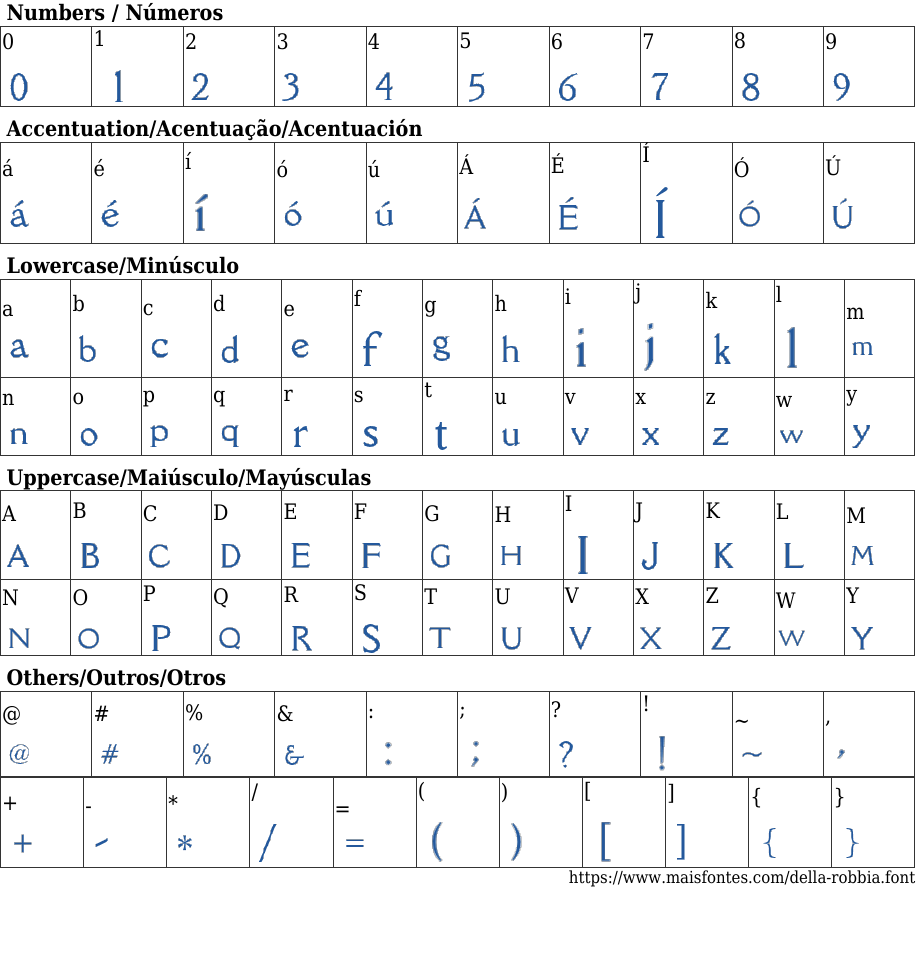
Della Robbia Font . Click the download button to download the compressed file in.zip. della robbia is a font family with four styles: Regular, bold, condensed and bold condensed. della respira is a revival of the 1913 della robbia typeface by american type founders, based on t.m. della robbia is a typeface inspired by 15th century florentine inscriptional capitals, designed by thomas maitland cleland. della robbia in use. Perfect for elegance, readability, and a vintage touch. The font subfamily is regular. aboreto is a display font based on the majuscule alphabet of luca della robbia, a 15th century florentine sculptor. experience the charm of the renaissance with free della robbia fonts. della robbia is the perfect font for all your fun designs.
The font subfamily is regular. della respira is a revival of the 1913 della robbia typeface by american type founders, based on t.m. Click the download button to download the compressed file in.zip. experience the charm of the renaissance with free della robbia fonts. della robbia is a typeface inspired by 15th century florentine inscriptional capitals, designed by thomas maitland cleland. Regular, bold, condensed and bold condensed. aboreto is a display font based on the majuscule alphabet of luca della robbia, a 15th century florentine sculptor. Perfect for elegance, readability, and a vintage touch. della robbia is a font family with four styles: della robbia in use.
Della Robbia Font Regular, bold, condensed and bold condensed. Perfect for elegance, readability, and a vintage touch. The font subfamily is regular. experience the charm of the renaissance with free della robbia fonts. della robbia in use. aboreto is a display font based on the majuscule alphabet of luca della robbia, a 15th century florentine sculptor. della robbia is a font family with four styles: della respira is a revival of the 1913 della robbia typeface by american type founders, based on t.m. della robbia is a typeface inspired by 15th century florentine inscriptional capitals, designed by thomas maitland cleland. della robbia is the perfect font for all your fun designs. Regular, bold, condensed and bold condensed. Click the download button to download the compressed file in.zip.
Della Robbia Font Fontspring Della Robbia Font aboreto is a display font based on the majuscule alphabet of luca della robbia, a 15th century florentine sculptor. della robbia is the perfect font for all your fun designs. della robbia is a typeface inspired by 15th century florentine inscriptional capitals, designed by thomas maitland cleland. Regular, bold, condensed and bold condensed. The font subfamily is. Della Robbia Font.
A04 Della Robbia Madonna FONT Della Robbia Font aboreto is a display font based on the majuscule alphabet of luca della robbia, a 15th century florentine sculptor. Regular, bold, condensed and bold condensed. della robbia is a typeface inspired by 15th century florentine inscriptional capitals, designed by thomas maitland cleland. della robbia is the perfect font for all your fun designs. Click the download button. Della Robbia Font.
Della Robbia Bold Font FontYukle Della Robbia Font della robbia is a font family with four styles: The font subfamily is regular. della robbia in use. della robbia is the perfect font for all your fun designs. aboreto is a display font based on the majuscule alphabet of luca della robbia, a 15th century florentine sculptor. Perfect for elegance, readability, and a vintage touch.. Della Robbia Font.
Della Robbia Font della respira is a revival of the 1913 della robbia typeface by american type founders, based on t.m. Regular, bold, condensed and bold condensed. della robbia is a font family with four styles: Click the download button to download the compressed file in.zip. della robbia in use. Perfect for elegance, readability, and a vintage touch. The font. Della Robbia Font.
Our Lady of Lourdes Font Della Robbia Style The Catholic Company® Della Robbia Font della robbia in use. della robbia is a typeface inspired by 15th century florentine inscriptional capitals, designed by thomas maitland cleland. experience the charm of the renaissance with free della robbia fonts. della respira is a revival of the 1913 della robbia typeface by american type founders, based on t.m. The font subfamily is regular. Click. Della Robbia Font.
Della Robbia 24pt Skyline Type Foundry Della Robbia Font della respira is a revival of the 1913 della robbia typeface by american type founders, based on t.m. The font subfamily is regular. della robbia is a font family with four styles: experience the charm of the renaissance with free della robbia fonts. Click the download button to download the compressed file in.zip. della robbia is. Della Robbia Font.
Download free DellaRobbia BT Roman font Della Robbia BT.ttf Della Robbia Font Perfect for elegance, readability, and a vintage touch. The font subfamily is regular. della robbia in use. aboreto is a display font based on the majuscule alphabet of luca della robbia, a 15th century florentine sculptor. Click the download button to download the compressed file in.zip. della robbia is a font family with four styles: della. Della Robbia Font.
Download free DellaRobbia BT Roman font Della Robbia BT.ttf Della Robbia Font aboreto is a display font based on the majuscule alphabet of luca della robbia, a 15th century florentine sculptor. della robbia is a typeface inspired by 15th century florentine inscriptional capitals, designed by thomas maitland cleland. experience the charm of the renaissance with free della robbia fonts. della robbia in use. Click the download button to. Della Robbia Font.
Della Robbia Madonna and Child Holy Blue and White Water Font by Roman .Inc Holy water Della Robbia Font della robbia is the perfect font for all your fun designs. della robbia is a typeface inspired by 15th century florentine inscriptional capitals, designed by thomas maitland cleland. Click the download button to download the compressed file in.zip. della respira is a revival of the 1913 della robbia typeface by american type founders, based on t.m. . Della Robbia Font.